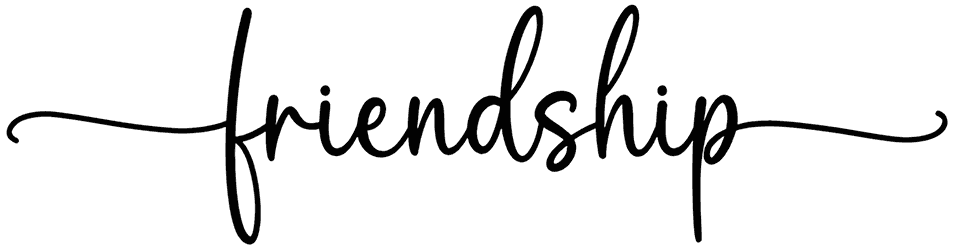
Friendship Font
Let’s take a look at our beautiful handwritten font, Friendship, which comes with a cheerful and natural feel. This approachable font has a full set of characters and subtle curves that make it a bit unreadable. Take advantage of it and create a unique impact on the whole world. You can use it for watermarks, lettering, wedding invitations, product packaging, and advertising materials.